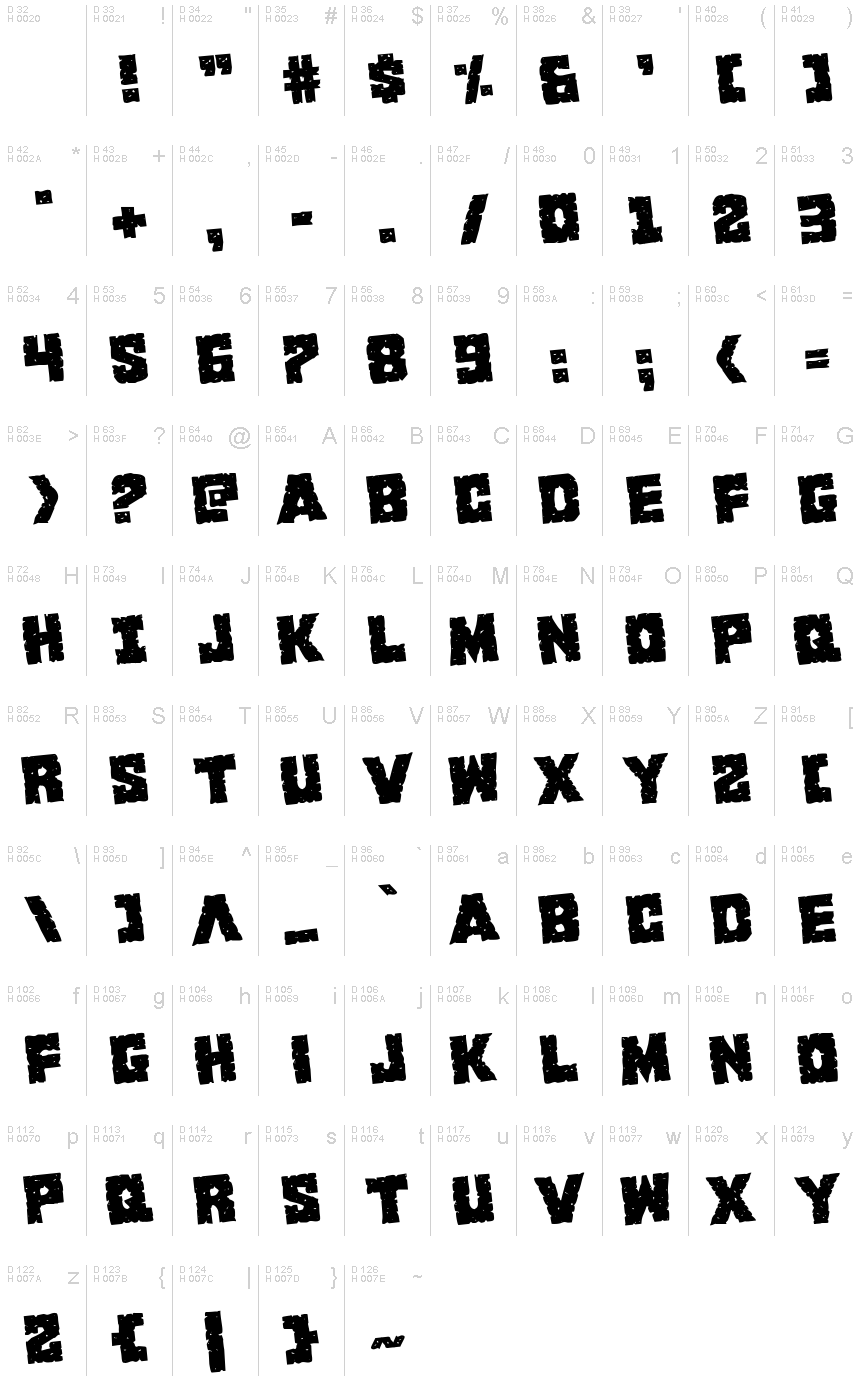
King Commando Rotate
King Commando Rotate stands out with its bold, eroded aesthetic, striking a balance between ruggedness and style. Crafted by Iconian Fonts, this display typeface commands attention with its distinctive, worn-out appearance, making it perfect for impactful visual statements.
The bold weight of King Commando Rotate enhances its assertive presence while the eroded texture adds an element of grit and toughness. This makes it ideal for designs requiring a powerful yet edgy look, such as posters, headlines, video game titles, or branding for extreme sports and urban themes.
Harness the unique energy of King Commando Rotate to ensure your project leaves a lasting impression.